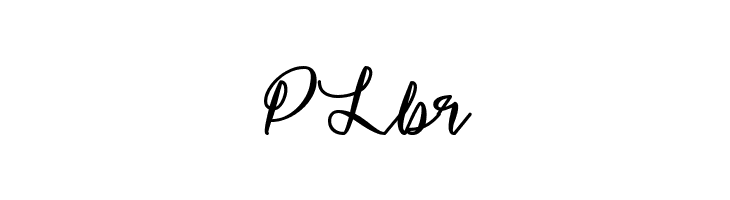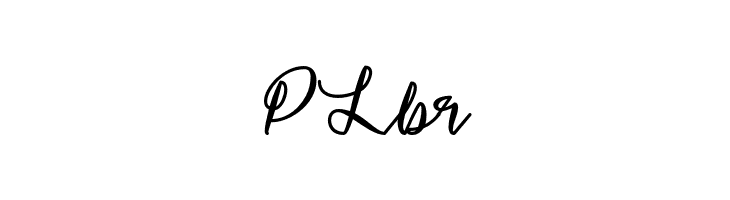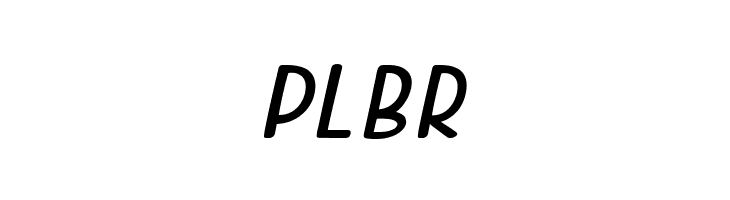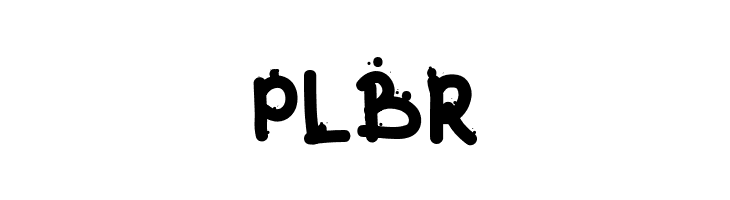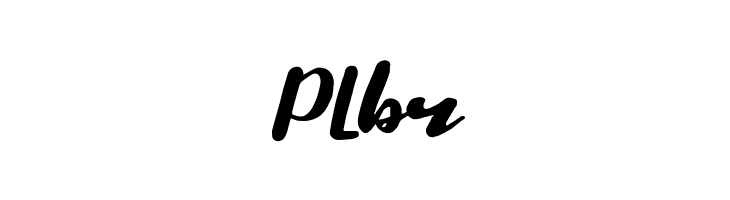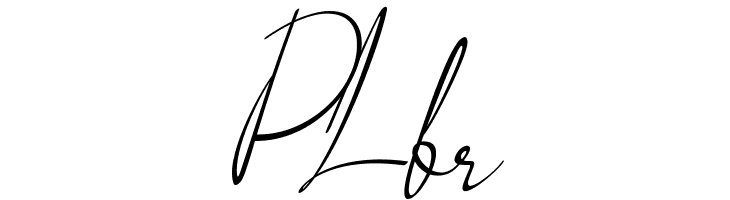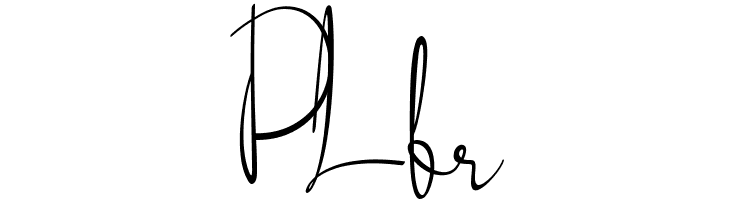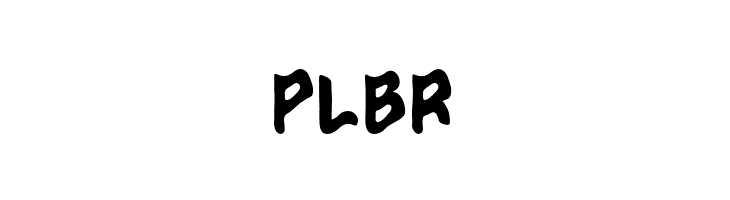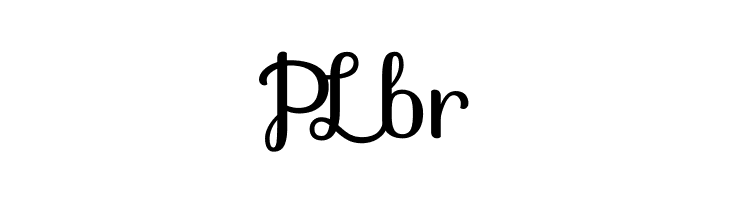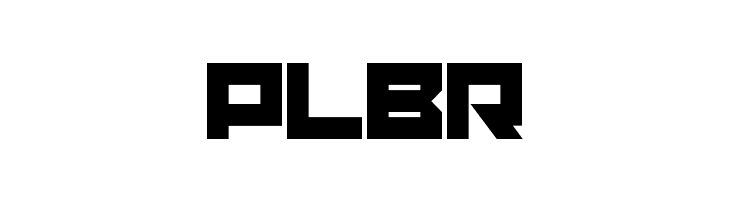
A smooth, rounded font with a slight slant, offering a casual and approachable style.
A playful, bold handwritten font with a whimsical style.
An elegant calligraphy font with fluid, interconnected strokes and ornate flourishes.
Intricate snowflake patterns with detailed geometric designs.
A graceful script font with flowing, interconnected letters and elegant curves.
A bold, energetic script font with a lively and informal style.
A bold, flowing script font with dynamic strokes and elegant slant.
A bold, expressive script font with fluid and dynamic strokes.
A playful, snowy-themed font with a bold, hand-drawn style.
A playful, starry font with bold, rounded characters and embedded sparkles.
A whimsical, italicized font with starry sparkles, perfect for festive designs.
Bold, outlined collegiate font with an athletic, italicized style.
A bold, collegiate-style font with outlined, blocky characters.
Bold, italicized font with a dynamic, sporty style.
A bold, geometric font with a strong, athletic style.
A playful, handwritten font with flowing, cursive-like strokes.
A sophisticated, cursive script font with elegant, flowing lines.
A whimsical, handwritten font with thin, elongated strokes and a casual elegance.
A graceful, handwritten script font with thin, flowing strokes.
A playful and elegant script font with a smooth, flowing appearance.
A playful, elegant script font with a handwritten feel and medium contrast.
A bold, geometric font with a futuristic and edgy design.
A bold, slanted font with high contrast and unique diagonal slashes.
A bold, italic, and dynamic font with high contrast and a modern style.
A bold, hand-drawn font with a playful and energetic style.
A bold, hand-drawn font with a playful and friendly style.